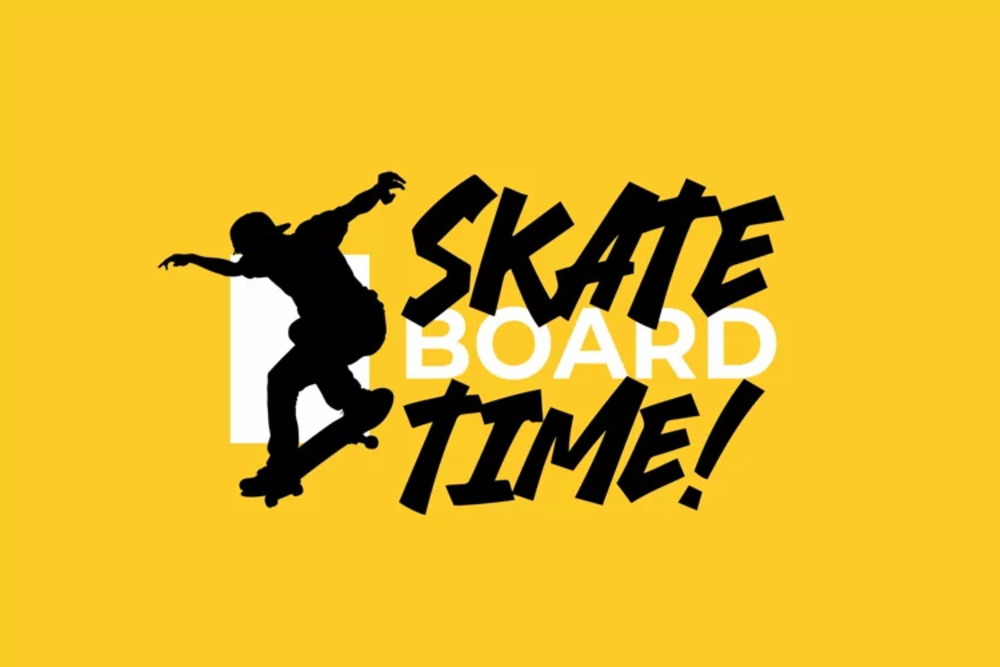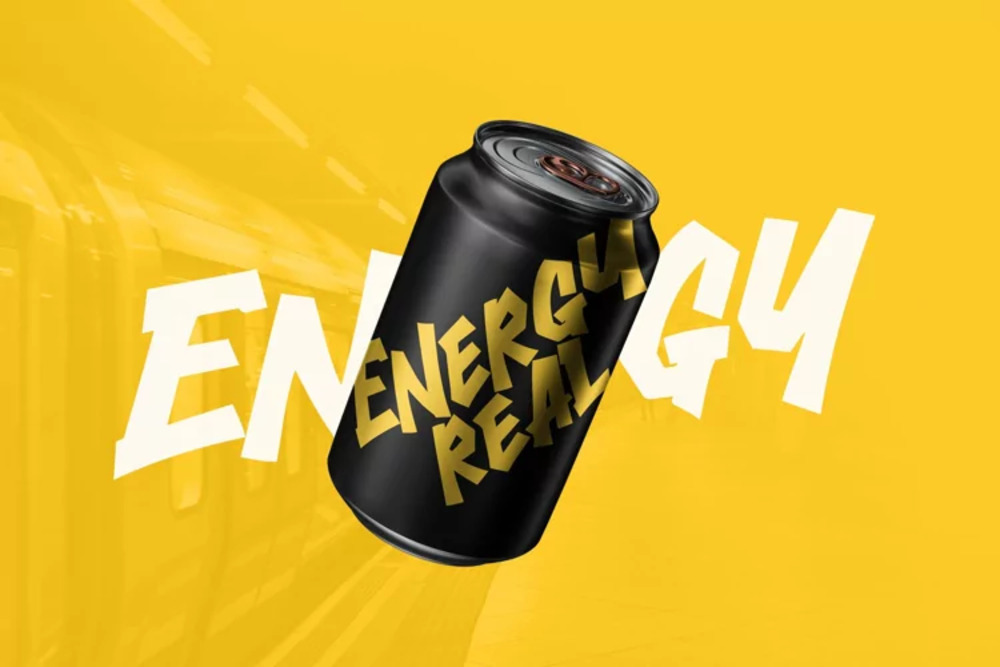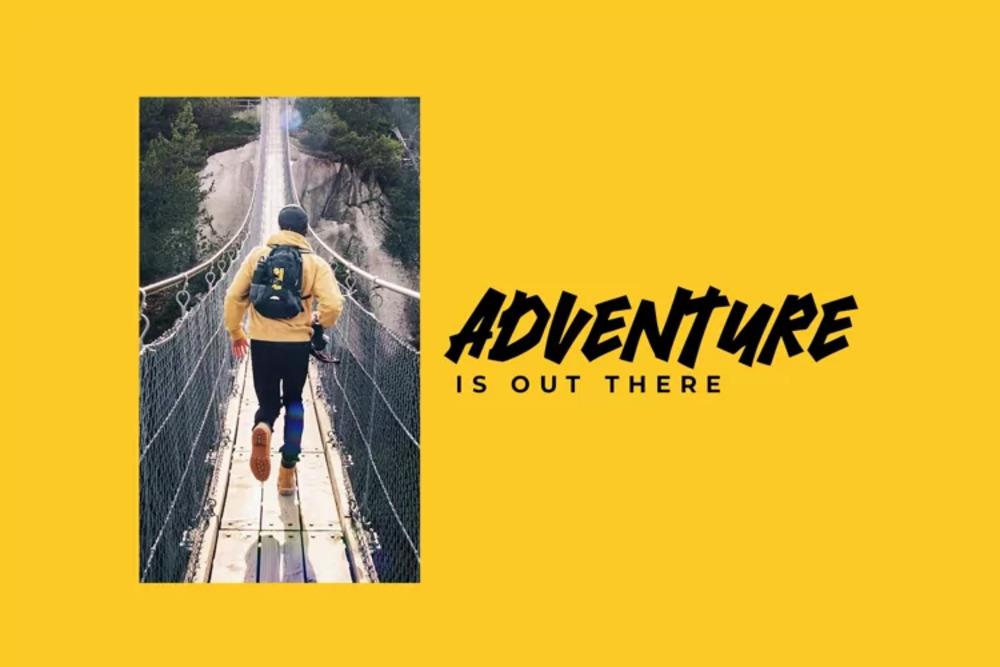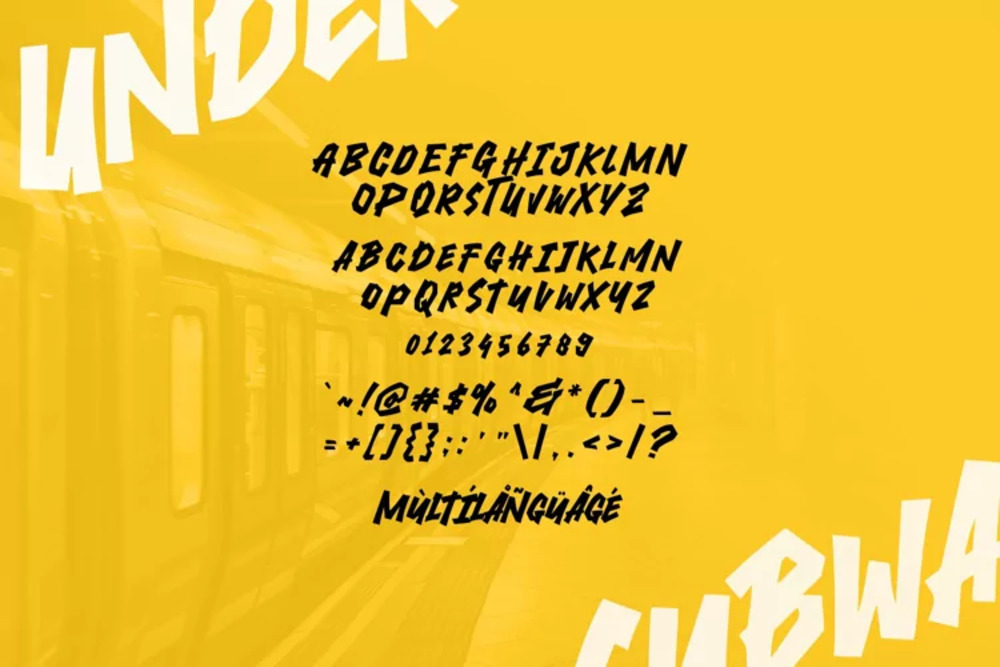
Under Subway Font
Under Subway is a gritty and urban-inspired font that captures the raw energy of city life. Its bold, textured letters evoke the feel of street art, graffiti, and industrial design, making it perfect for edgy posters, music covers, and bold branding. With its rugged aesthetic and unique character, Under Subway adds an authentic urban vibe, ensuring your designs stand out with a touch of metropolitan attitude and creativity.